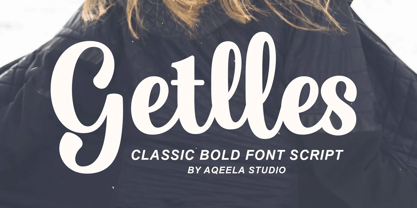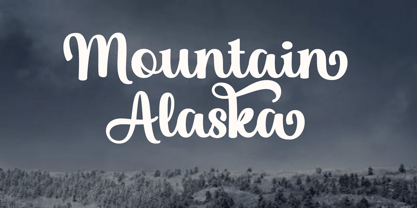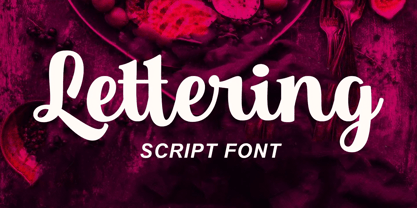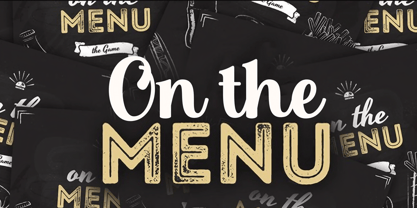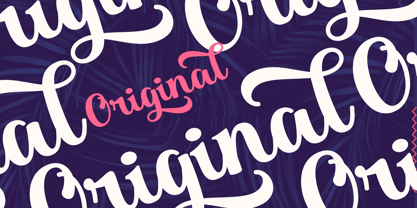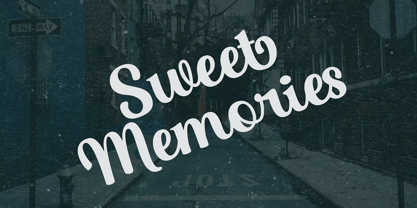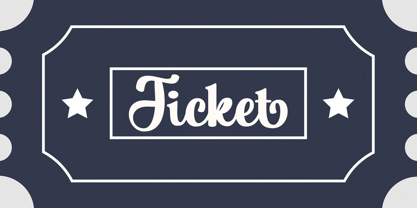
Getlles
by Aqeela Studio
The Getlles Font Family was designed by Muhammad Nasir and published by Aqeela Studio. Getlles contains 1 styles. More about this family
Getlles Script Bold is more than just a typeface; it’s a charismatic dance of letters that brings a touch of elegance and personality to any design. This bold script font exudes a sense of effortless sophistication and creative flair. Each letter flows gracefully into the next, creating a seamless and harmonious look that captures the eye and engages the viewer.
Ideal for branding, invitations, and any project that requires a personal and stylish touch, Getlles Script Bold strikes a perfect balance between modern chic and classic charm. Its bold strokes and intricate curves add a sense of drama and impact, making it ideal for headlines, logos, and signature designs. Whether you’re aiming to evoke nostalgia or make a bold statement, Getlles Script Bold is your go-to choice for adding a distinctive, handcrafted vibe to your work.
Designers: Muhammad Nasir
Foundry: Aqeela Studio